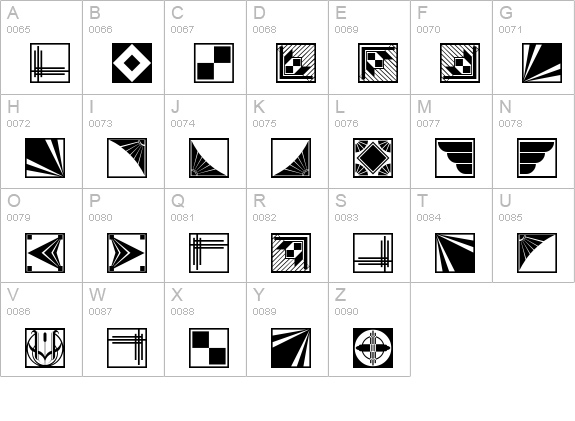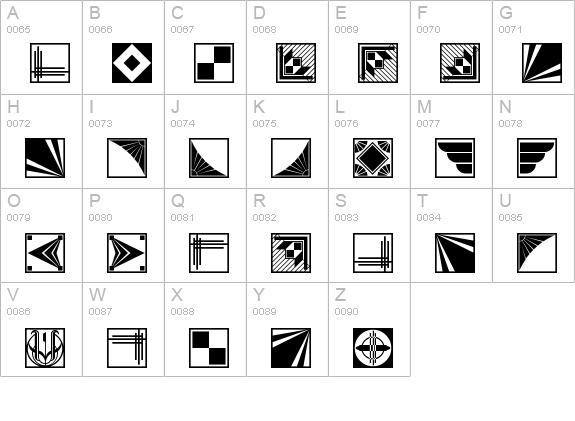
Deco Borders NF Font Details
Deco Borders NF font is a stunning display typeface that exudes elegance and sophistication. Its intricate decorative borders add a touch of vintage charm to any design project. This font is perfect for creating eye-catching invitations, posters, and other creative works that require a touch of artistic flair. What makes Deco Borders NF font even more attractive is that it is completely free to download! You can easily access this beautiful font at FontsMarket.com and enhance your projects with its unique style. Don't miss out on the opportunity to add a touch of timeless beauty to your designs with Deco Borders NF font. Download it today and let your creativity shine!